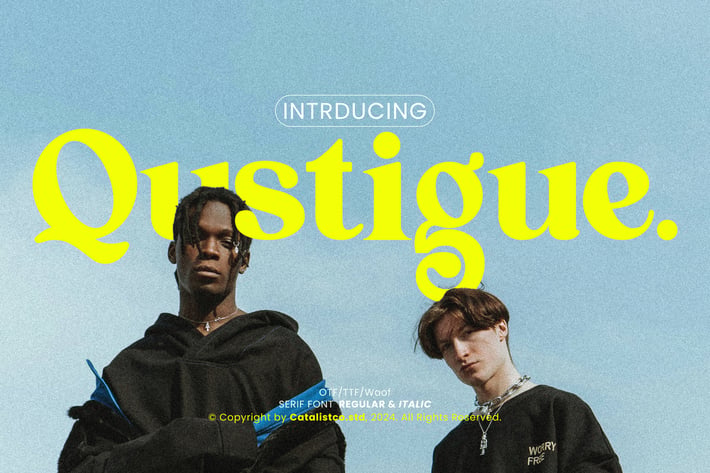
Qustigue Serif Font
Qustigue is a modern elegant serif typeface built with refined contrast, smooth curves, and sophisticated character shapes. Its stylish terminals, expressive serifs, and clean proportions create a timeless editorial look suitable for premium branding and high-end visual communication. The type family includes Regular and Italic, offering flexibility for expressive typography and polished layouts.
Ideal for magazine headlines, luxury branding, fashion campaigns, logo design, product packaging, social media content, and elegant typographic compositions. With complete uppercase, lowercase, numbers, punctuation, and stylistic detailing, Qustigue delivers a professional serif font crafted for designers who value clarity, grace, and modern sophistication.